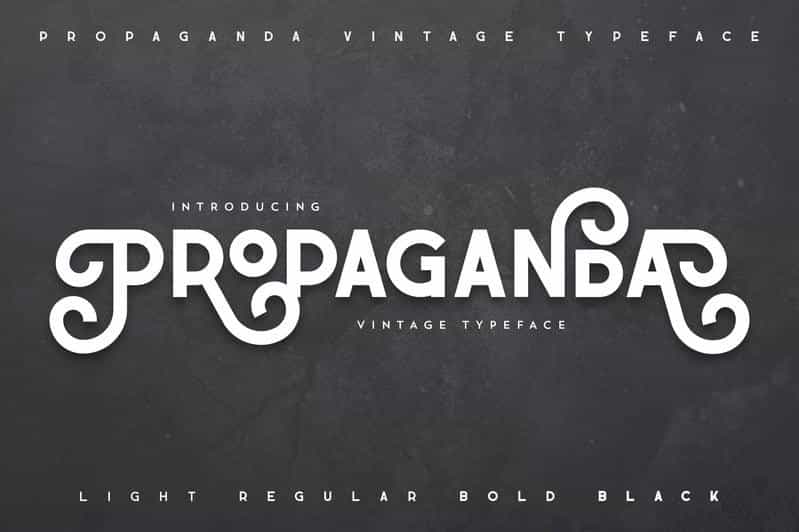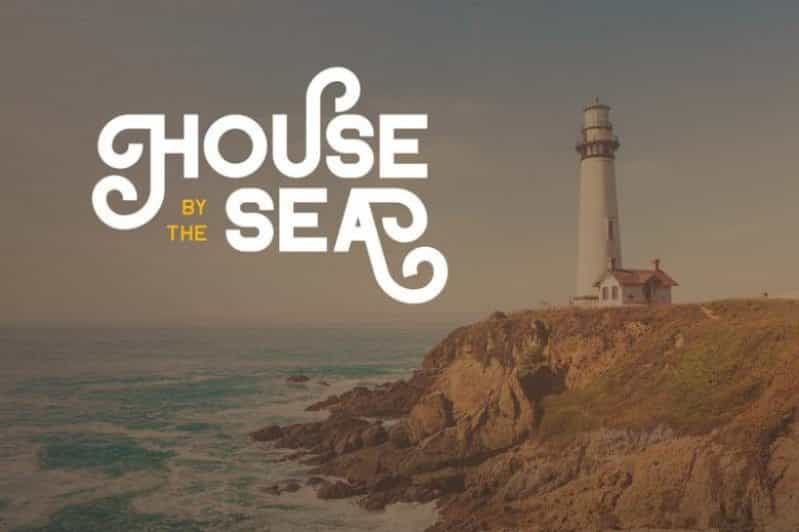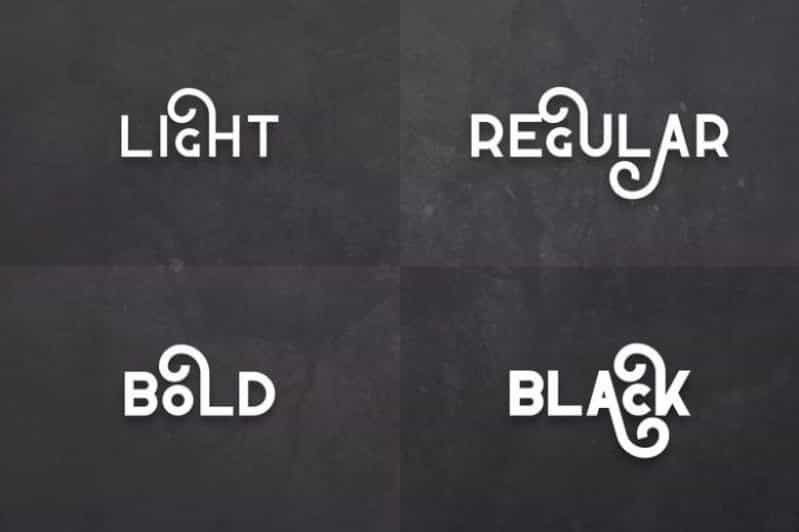
Propaganda is a vintage, clean and modern typeface with four weights, fifty-four different characters, many options and international characters. It is a very flexible font that looks good at large sizes and as well at small sizes.